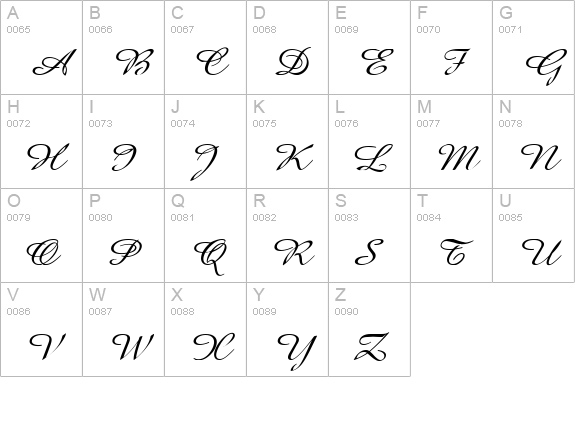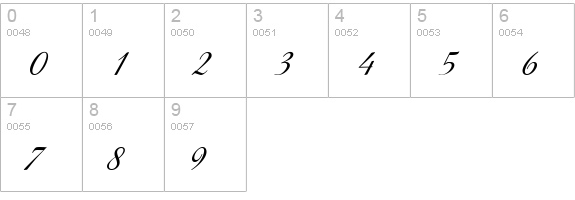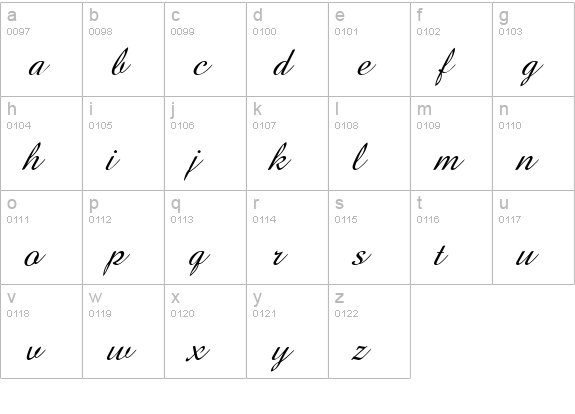
Amaze Italic is a distinctive, italic variant in the Amaze typeface family \xE2\x80\x94 well suited to design and typography projects.
Amaze Italic font is a stunning typeface that exudes elegance and sophistication. Its sleek and slanted design adds a touch of modernity to any project, making it perfect for use in branding, advertising, and editorial design. The italicized style of Amaze font brings a sense of movement and dynamism, capturing the attention of the viewer. What makes Amaze Italic font even more appealing is that it is available for free download at FontsMarket.com. This means you can easily access this beautiful typeface and use it in your creative projects without any cost. Don't miss out on the opportunity to enhance your designs with the stylish and versatile Amaze Italic font – get it now for free at FontsMarket.com!